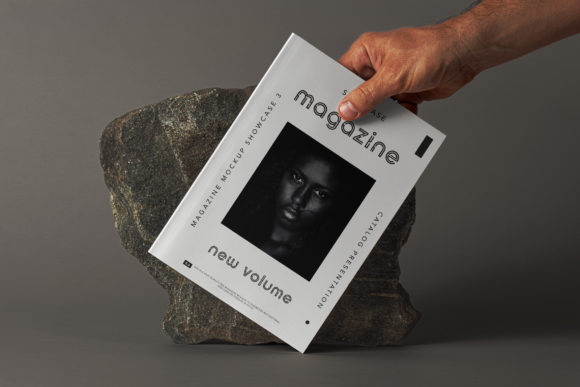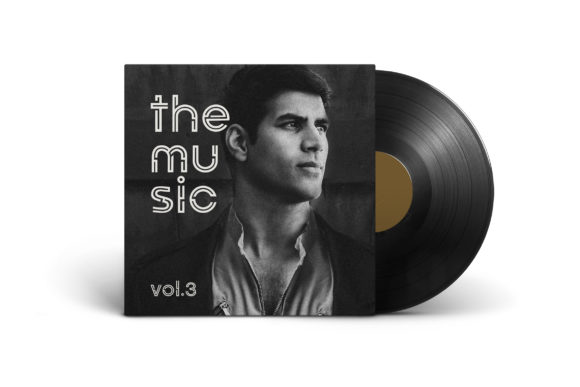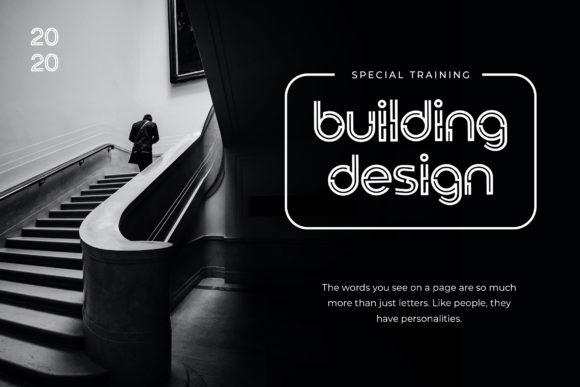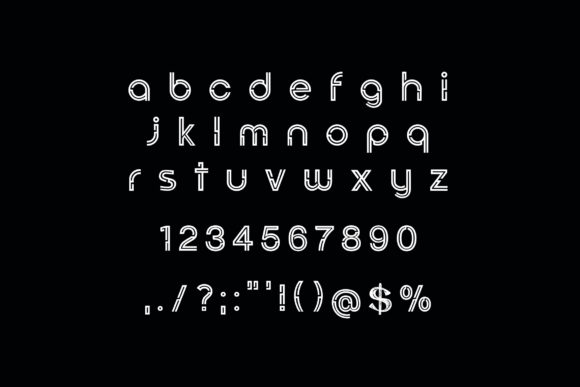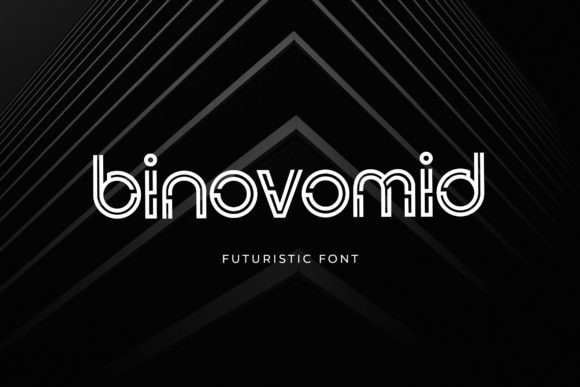
Introducing Binovomid Font: Elevate Your Designs with a Cool and Modern Display Font
In the world of design, typography plays a crucial role in conveying messages and capturing attention. A well-chosen font can make or break a design project. If you’re on the hunt for a font that exudes coolness and modernity, look no further than Binovomid. This display font is simple yet packs a strong visual punch, making it the perfect addition to your design arsenal.
What is Binovomid Font?
Binovomid is a stylish and contemporary display font designed to make your creations stand out from the crowd. Its clean lines and minimalist aesthetic give it a versatile appeal that can be used across various design projects. Whether you’re working on a logo, a poster, a website, or any other visual material, Binovomid is sure to add a touch of sophistication and flair.
Key Features of Binovomid Font
- Cool and Modern Design: Binovomid boasts a fresh and modern look that will instantly elevate your designs. Its sleek lines and simple shapes make it perfect for designers who want to convey a sense of style and sophistication.
- Strong Visual Effect: Despite its simplicity, Binovomid has a strong visual impact that will grab attention and leave a lasting impression. Its unique design ensures that your text will stand out, making it ideal for headlines, titles, and other display purposes.
- Versatility: Binovomid is a versatile font that can be used across a wide range of design projects. From branding and advertising to web design and crafting, this font adapts seamlessly to different contexts and mediums.
- Ease of Use: Binovomid is easy to read and works well in both digital and print formats. Its clarity and legibility make it a practical choice for designers who need a reliable font for their projects.
Why Choose Binovomid Font?
With so many fonts available, why should you choose Binovomid for your design projects? Here are a few compelling reasons:
- Unique Style: Binovomid offers a unique style that sets it apart from more traditional fonts. Its modern design ensures that your work will have a distinctive look that captures attention.
- High Versatility: Whether you’re designing for digital platforms or print media, Binovomid performs exceptionally well. Its adaptability makes it a valuable addition to any designer’s font library.
- Enhanced Readability: Despite its stylish appearance, Binovomid does not compromise on readability. It remains clear and legible even at smaller sizes, making it suitable for a variety of applications.
How to Use Binovomid Font in Your Designs
Integrating Binovomid into your design workflow is straightforward. Here are some tips on how to make the most of this versatile font:
- Pair with Complementary Fonts: For maximum impact, pair Binovomid with complementary fonts that enhance its modern appeal. A combination of serif and sans-serif fonts can create a visually appealing contrast.
- Experiment with Sizes and Colors: Binovomid looks great in various sizes and colors. Experiment with different weights and color schemes to find the perfect combination that suits your design.
- Use for Headlines and Titles: Given its strong visual effect, Binovomid is best used for headlines, titles, and other display text. It can also be used for short paragraphs or captions where a stylish touch is desired.
Binovomid is a cool and modern display font that can instantly elevate your designs. Its simple yet strong visual effect makes it an excellent choice for designers and crafters looking to add a touch of sophistication to their work. With its versatility, readability, and unique style, Binovomid is sure to become a staple in your font library. So, why wait? Download Binovomid today and take your designs to the next level!